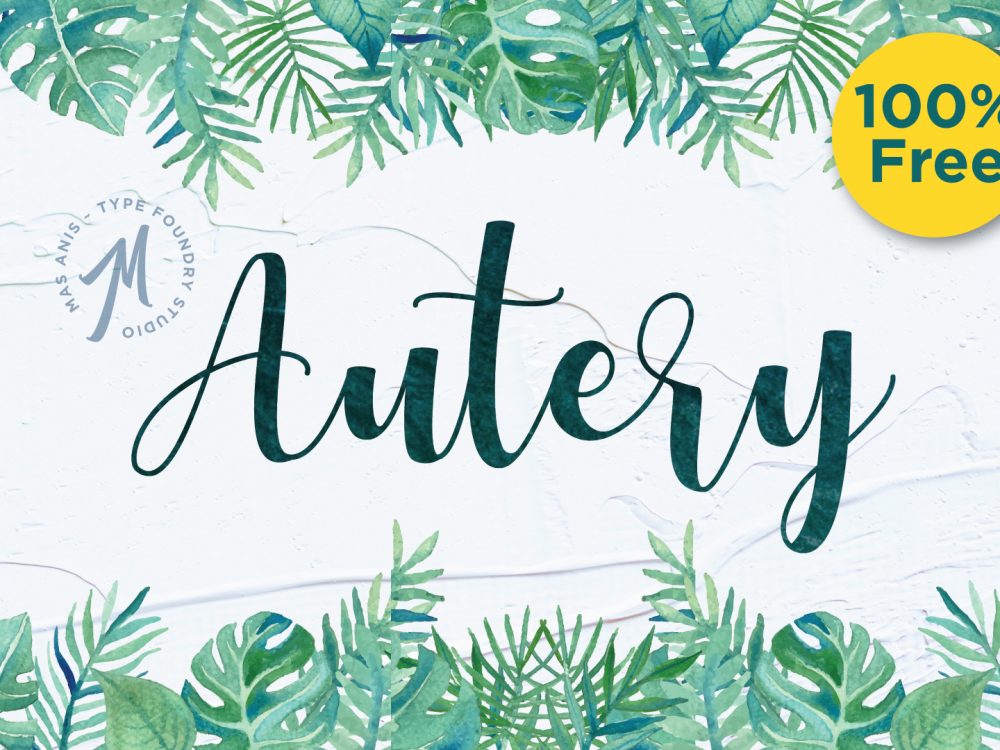
Autery Script Free Font
Autery Script Free Font is an interesting modern handwritten font that has an elegant style and flowing lines. This font is very suitable for creating various design projects that require a scripted font. These can be posters, wedding invitations, cards, branding, flyers, prints, and more.